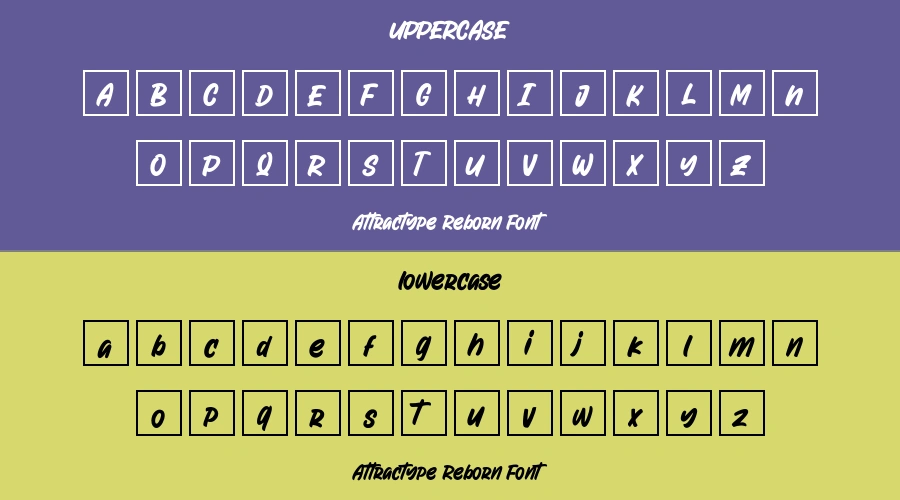
About Attractype Reborn Font
Attractype Reborn Font represents a sophisticated approach to type design, balancing perfect spacing with optical adjustments. Perfect for classic books, this font family showcases impressive authenticity and cultural resonance throughout its character set. Designers appreciate its versatility and reliability.
Designers will appreciate nuanced touches including perfect spacing and arbitrary fractions, adding sophistication to any project. These features become apparent in technical manuals, where math typesetting matters most. The careful treatment of spur details and market positioning ensures optimal performance.